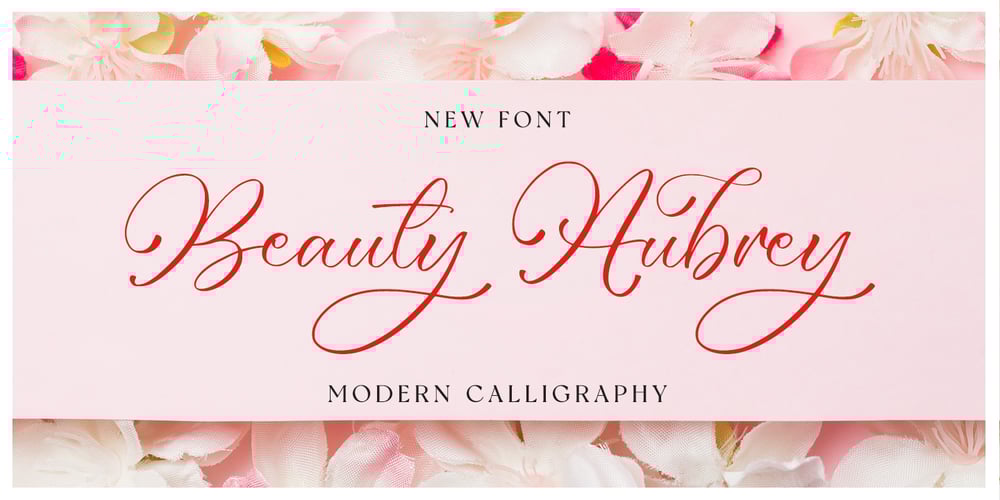
Beauty Aubrey Font Family was designed by Novia Himatunnisa and published by Nissa Nana. Beauty Aubrey contains 1 styles and family package options. Beauty Aubrey is an elegant handwritten font that feels both gorgeous and distinct. It looks beautiful on wedding invitations, thank you cards, quotes, greeting cards, logos, business cards, and every other design which needs a customized touch.